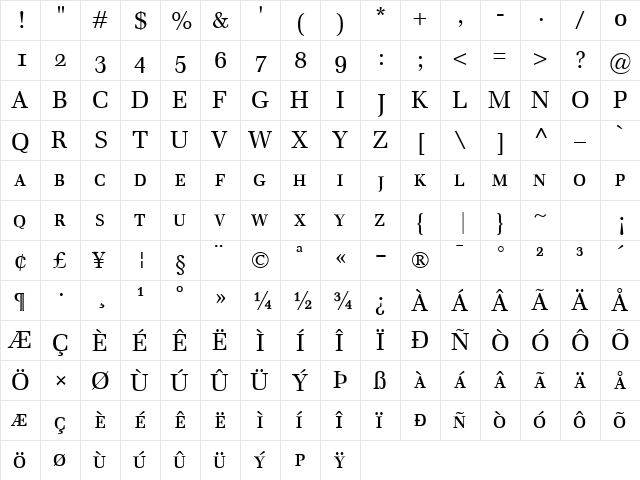
Emona SmallCaps Regular
Design Context for Emona SmallCaps Typeface
Emona SmallCaps takes a measured approach to typography — its balanced proportions and neutral character make it a reliable workhorse for both digital and print work.